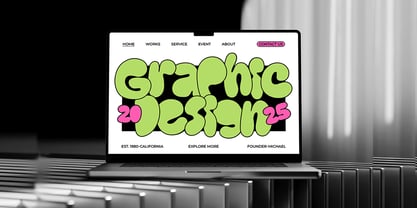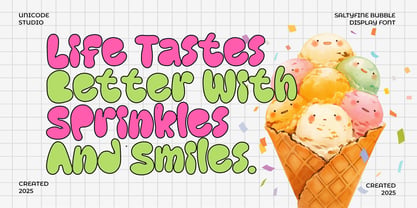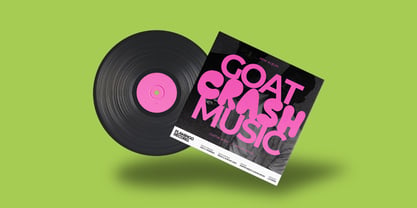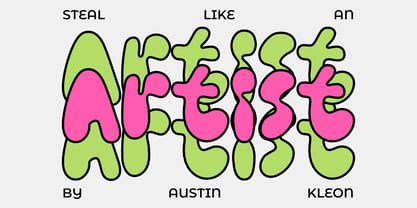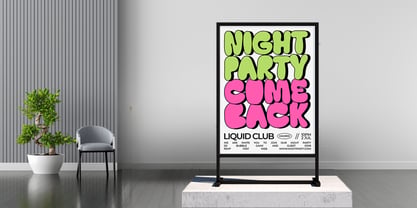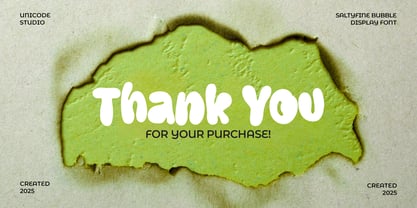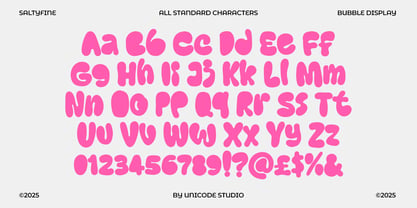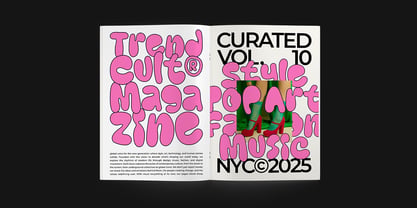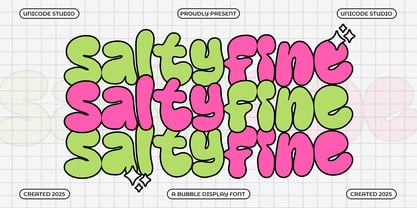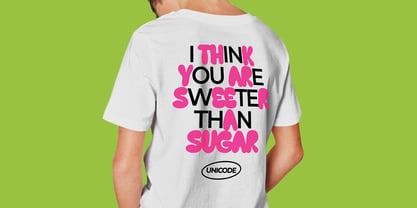
Saltyfine
by Unicode Studio
The Saltyfine Font Family was designed by BOYHAQI . and published by Unicode Studio. Saltyfine contains 1 styles. More about this family
Saltyfine – Fun Bubble Display Font for Playful and Retro Designs Saltyfine is a bold and playful bubble display font that brings joy and energy to any design. Inspired by retro pop aesthetics and bubbly shapes, this font is perfect for kids’ projects, posters, branding, packaging, and social media graphics. With its chunky, rounded letters and vibrant personality, Saltyfine adds a cheerful and eye-catching vibe to your creative work. Whether you’re designing for summer campaigns, cartoon titles, or colorful logos, this font makes your message stand out in a fun and friendly way.
Designers: BOYHAQI .
Current Foundry: Unicode Studio